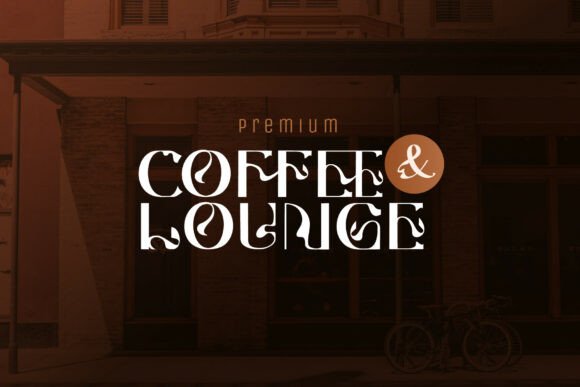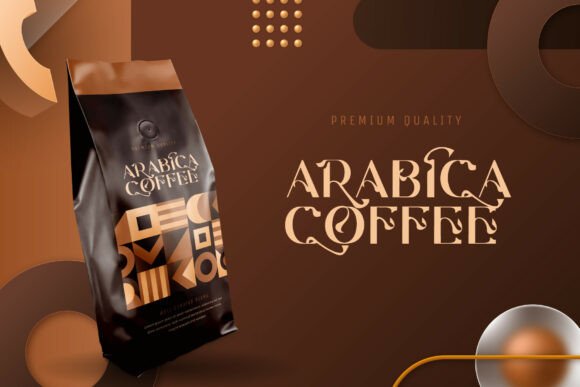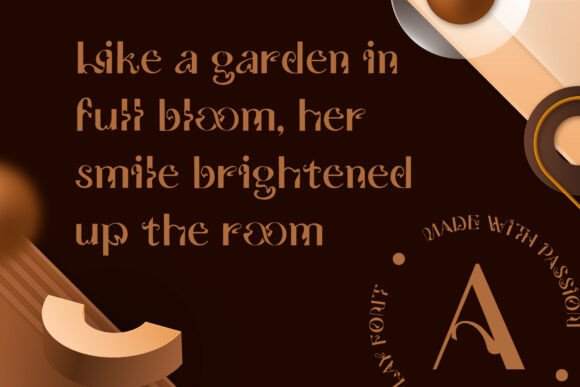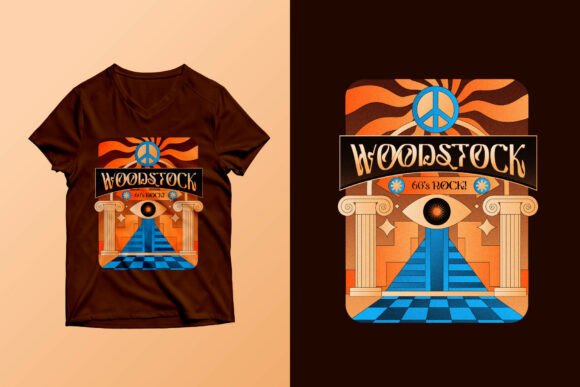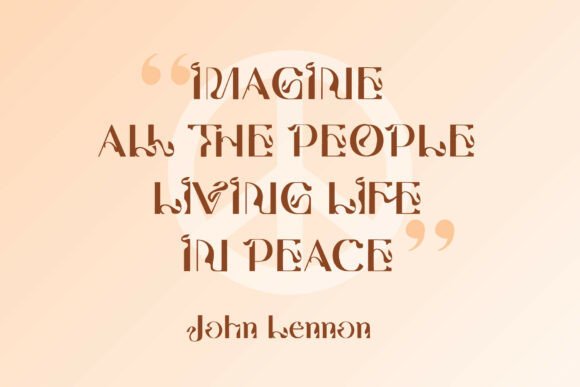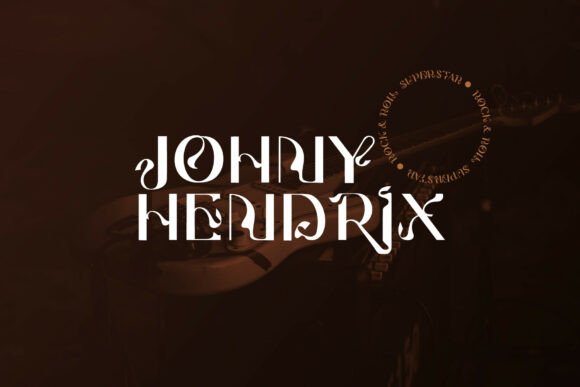
BUTIQUE Font: A Psychedelic Display Font for Creative Projects
Are you looking for a font that can add a touch of psychedelic elegance to your design projects? Look no further than BUTIQUE Font, a display font that embodies the curvy, classy shapes of the 1960s. This font is perfect for designers and crafters who want to create visually stunning posters, logotypes, editorial layouts, magazines, and merchandise.
Inspired by the Psychedelic Vibes of the 1960s
BUTIQUE Font is deeply rooted in the psychedelic art movement of the 1960s. This era was characterized by its use of vibrant colors, swirling patterns, and experimental typography. The font’s curvy, classy shapes are a nod to this iconic style, evoking feelings of nostalgia and playfulness. Whether you’re designing a retro-themed poster or a modern editorial layout, BUTIQUE Font is sure to add a touch of psychedelic flair.
Key Features of BUTIQUE Font
So, what makes BUTIQUE Font so special? Here are some of its key features:
- Curvy, classy shapes: BUTIQUE Font features smooth, flowing curves that give it a sophisticated and elegant feel.
- Psychedelic vibes: The font’s design is inspired by the psychedelic art movement of the 1960s, making it perfect for retro-themed projects.
- Display font: BUTIQUE Font is designed to be used as a display font, making it ideal for headlines, titles, and other prominent text elements.
- Highly versatile: This font can be used for a wide range of projects, from posters and magazines to merchandise like t-shirts and stickers.
Use Cases for BUTIQUE Font
BUTIQUE Font is an incredibly versatile font that can be used for a variety of projects. Here are some use cases to get you started:
- Poster typography: Use BUTIQUE Font to create eye-catching posters that showcase your message in a bold and stylish way.
- Logotypes: Create a memorable brand identity with BUTIQUE Font, perfect for logos, business cards, and other marketing materials.
- Editorial layouts: Add a touch of elegance to your editorial layouts with BUTIQUE Font, perfect for magazines, newspapers, and online publications.
- Merchandise: Use BUTIQUE Font to create stunning merchandise like t-shirts, stickers, and other promotional items.
Why Designers and Crafters Love BUTIQUE Font
So, why do designers and crafters love BUTIQUE Font? Here are just a few reasons:
- Unique style: BUTIQUE Font offers a unique and distinctive style that’s sure to set your designs apart.
- Easy to use: This font is incredibly easy to use, with a simple and intuitive design that’s perfect for designers of all skill levels.
- High-quality design: BUTIQUE Font is designed to the highest standards, with clean lines, smooth curves, and a professional finish.
In conclusion, BUTIQUE Font is a stunning display font that’s perfect for designers and crafters who want to add a touch of psychedelic elegance to their projects. With its curvy, classy shapes and versatile design, this font is sure to become a favorite in your design arsenal. So why wait? Download BUTIQUE Font today and start creating stunning designs that showcase your creativity and style.